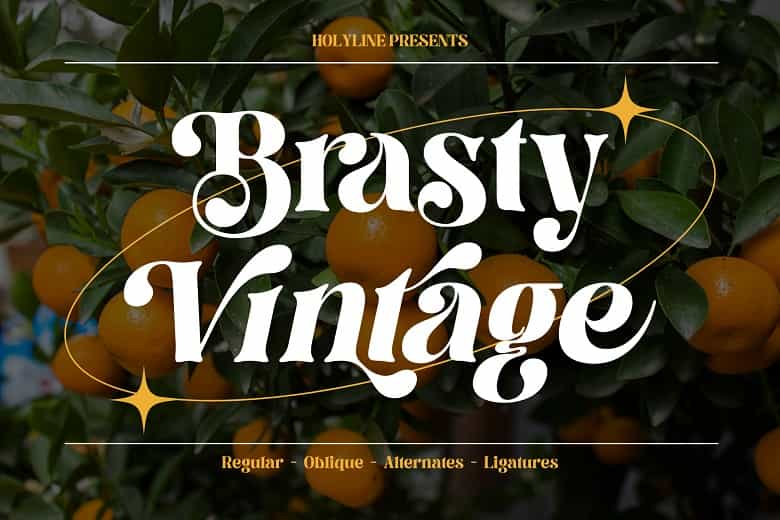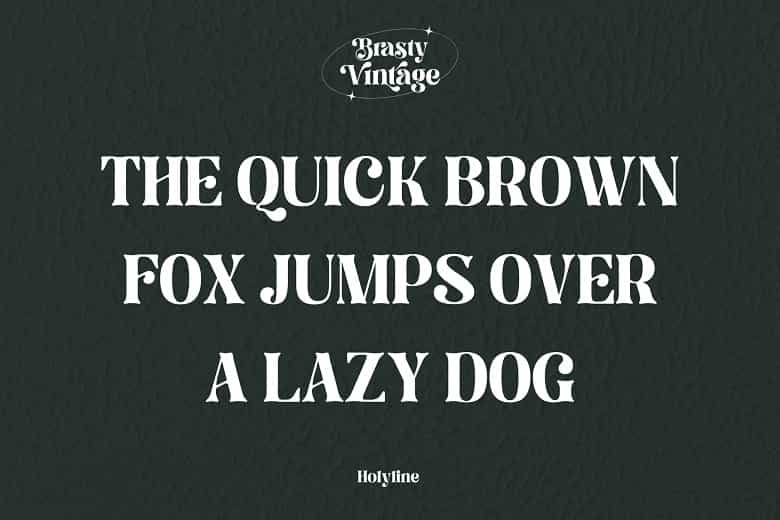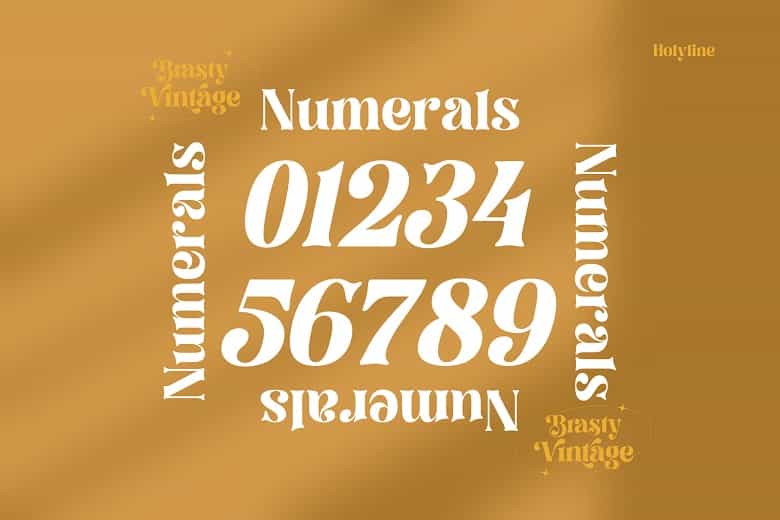
Brasty Vintage is a magnificent vintage serif font that has been designed to give a classic touch to any creative work. The soft edges and fine strokes of each letter recall and esthetic of a time that has long passed to become a thing of beauty. Great for bringing elegance to any design works, this set of fonts is perfect for accomplishing that old world look.